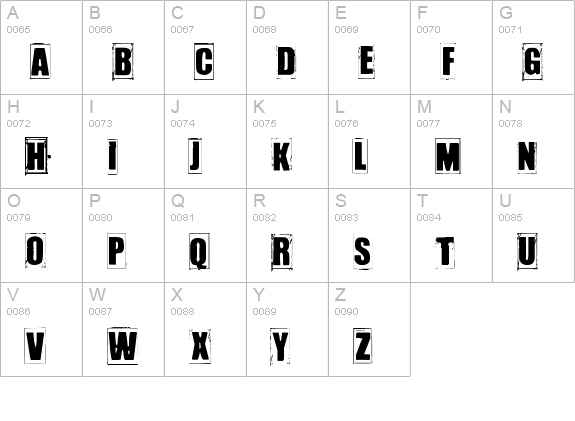
Introducing IKHIOOGLAone font - a striking and modern typeface that is sure to make a statement in any design project. With its sleek lines and contemporary style, this font exudes a sense of sophistication and elegance. The unique letterforms and sharp angles of IKHIOOGLAone font make it perfect for creating eye-catching headlines, logos, and branding materials. But the best part? IKHIOOGLAone font is completely free to use! That's right, you can download this gorgeous font for absolutely no cost at FontsMarket.com. Whether you're a designer looking to add a fresh new font to your collection or a business owner in need of a standout typeface for your marketing materials, IKHIOOGLAone font is the perfect choice. Don't miss out on this fantastic opportunity to elevate your designs with this stunning and free font. Download IKHIOOGLAone font today and take your projects to the next level!